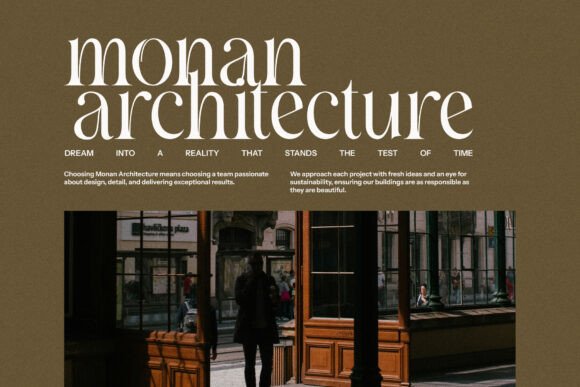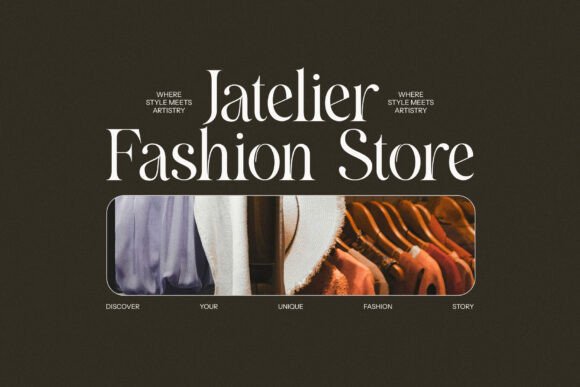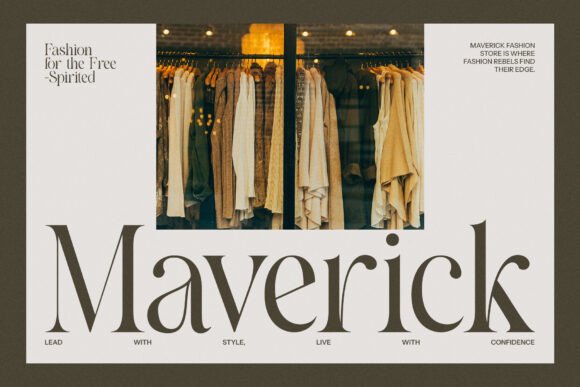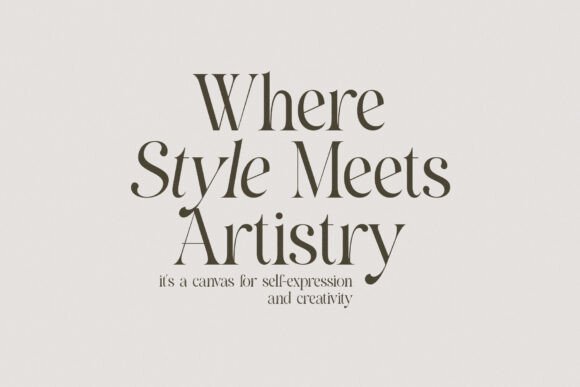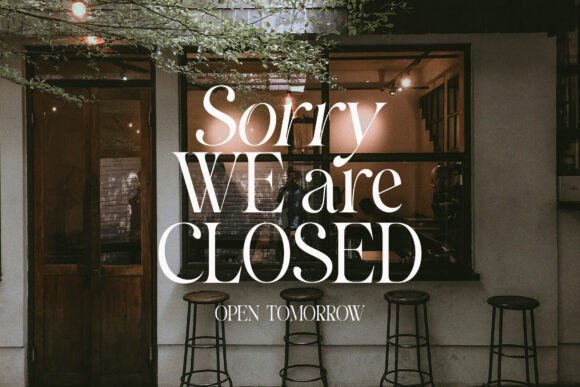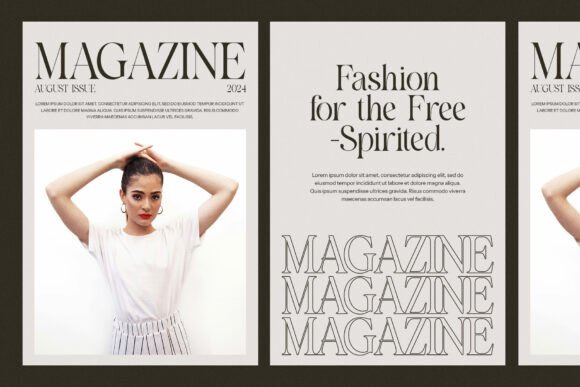
Introduction to Sandrus Font
Have you ever been stuck on a creative project, staring at a blank canvas, and suddenly, a spark of inspiration strikes? For designers, those moments of clarity can be the difference between a good design and a great one. And that’s exactly what the Sandrus Font aims to ignite – a sense of elegance and sophistication that elevates any project to the next level.
As a designer, you know the importance of having a reliable and versatile design resource at your fingertips. The Sandrus Font is a high-quality, free download that offers a unique blend of modern and vintage charm, making it the perfect addition to any creative project. With its transparent background and elegant curves, this font is sure to add a touch of class to your designs, whether you’re working on a logo, branding, or high-end product packaging.
- Unique, handcrafted design with a distinctive aesthetic, setting it apart from other free fonts.
Honest Review: Sandrus Font
As a designer, I’ve come across my fair share of fonts, but the Sandrus Font has left a lasting impression on me. With its sleek and modern design, it’s perfect for any creative project that requires a touch of sophistication.
One of the standout features of the Sandrus Font is its high quality and detailed design. It’s a great addition to any design resource, and I love that it’s available for free download. This makes it an excellent choice for designers on a budget or those just starting out.
- ✨ High-quality design with a modern aesthetic
- ✨ Suitable for a variety of creative projects, from logos to graphics
- ⚠️ Limited character set, which may be a concern for designers who need a wide range of characters
Overall, I’m impressed with the Sandrus Font. While it may have some limitations, its high quality and modern design make it a great addition to any design resource. I would highly recommend it to designers looking for a stylish and sophisticated font.
Tips for Getting the Most Out of Sandrus Font
To get the most out of Sandrus Font, use it in conjunction with other design resources, such as graphics and images. Experiment with different font sizes, colors, and arrangements to create a unique and eye-catching design.
Common Use Cases for Sandrus Font
The Sandrus Font is a versatile design resource that can be used in a variety of creative projects, including logos, business cards, and presentations. Its high quality and transparent background make it a great choice for a variety of design applications.